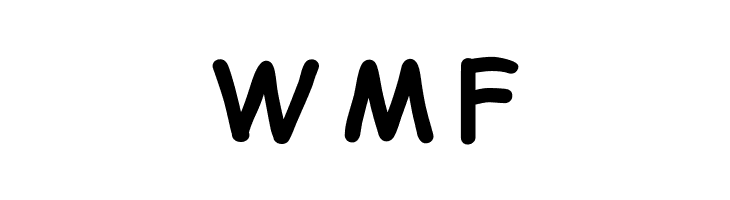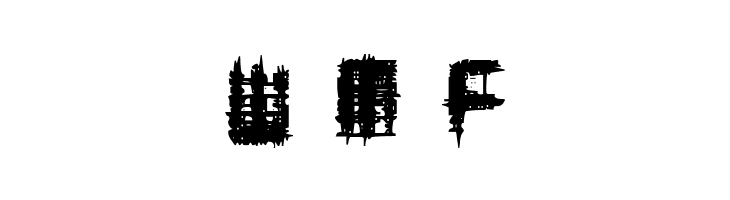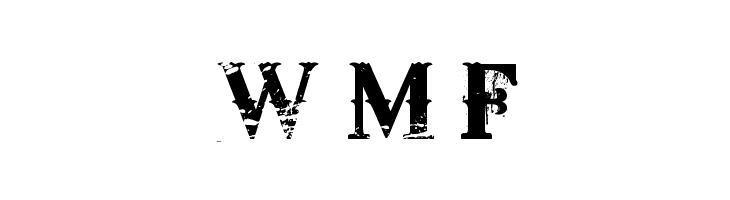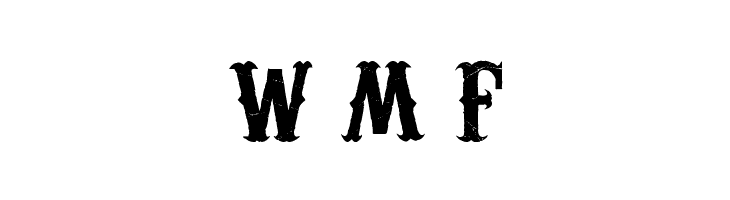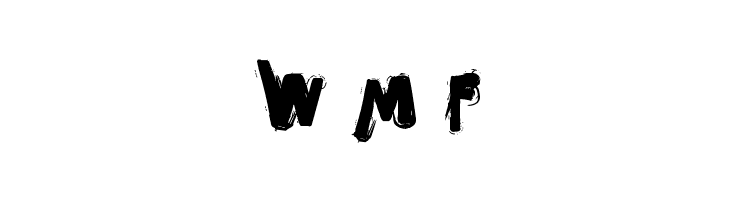
A sleek, modern, and italicized font with thin strokes and a condensed style.
A sleek, modern italic font with elongated, light letterforms.
A sleek, modern font with thin, clean lines and a minimalistic design.
A sleek, modern, thin, and italicized font with extended width.
A bold, elegant script font with smooth, flowing curves.
A bold, expressive handwritten font with fluid strokes and playful curves.
A sleek, extra-condensed, extra-light italic font with a modern aesthetic.
A playful, rounded, handwritten-style font with medium contrast.
A playful, interconnected font with rounded edges and consistent line weight.
A futuristic, hollow font with smooth, continuous lines and a playful aesthetic.
A modern, playful font with smooth, continuous lines and a structured appearance.
A bold, italic font with interconnected, flowing characters and a modern aesthetic.
A modern, fluid font with geometric and playful elements.
A playful, bold font with rounded, interconnected strokes and a modern style.
A modern, playful italic font with smooth curves and rounded edges.
A modern, geometric font with a sleek and futuristic design.
A bold, playful font with rounded edges and a friendly style.
A sleek, modern, light italic font with medium contrast and condensed spacing.
A playful, hand-drawn font with bold, irregular letterforms.
A sleek, modern, light italic font with clean, streamlined letterforms.
A bold, brush-style font with dynamic, energetic strokes.
An edgy, angular font with geometric elements and decorative details.
A sleek, modern font with thin, clean lines and a minimalist aesthetic.
A bold, slanted font with sharp angles and a modern, dynamic style.
An elegant script font with decorative swirls and flowing cursive style.
A bold, playful font with rounded, hand-drawn characters.
A playful and whimsical font with elegant swirls and loops.
A dynamic, expressive handwritten font with fluid, irregular strokes.
A dynamic, expressive handwritten font with fluid, organic strokes.
A futuristic, outlined font with geometric precision and smooth, continuous lines.
A modern, condensed, light italic font with a sleek and elegant style.
A bold, dynamic script font with a handwritten style.
A bold, playful script font with a dynamic and informal style.
A playful, bold font with rounded edges and a unique shadow effect.
A decorative font with elegant swashes and modern flair.